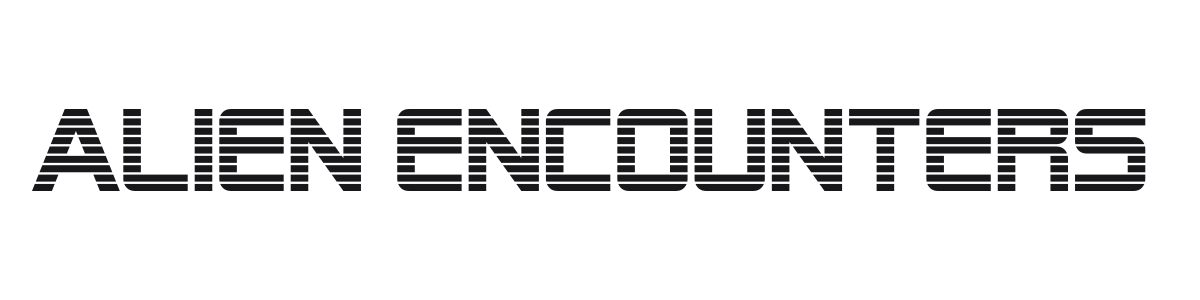
Alien Encounters
Alien Encounters is a wide, bold display face from Shy Fonts with horizontal stripes cut through each letterform, giving it the look of text rendered on a malfunctioning alien monitor. The uppercase-only characters are big and blocky, built to dominate posters, film titles, and sci-fi packaging at large sizes. It's unapologetically loud and stylized, the kind of font that signals "outer space" before you've even read the words.